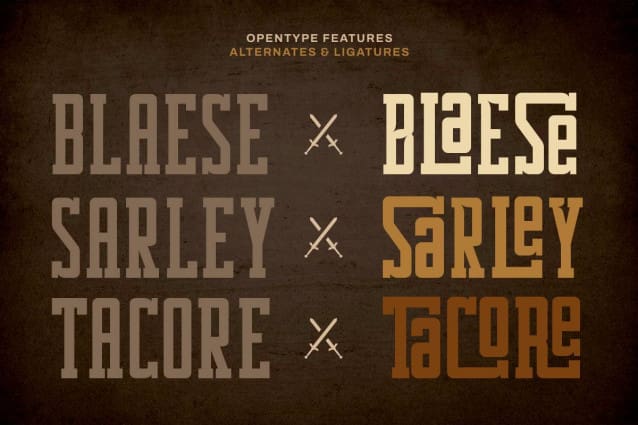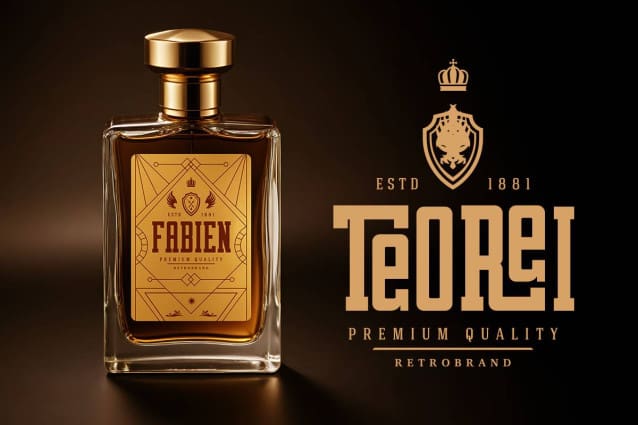
Patema Font
Patema Font – Slab Serif Condensed Font, a bold yet elegant typeface meticulously designed to combine the strength of slab serif with the sleekness of condensed letterforms. Patema Font is crafted to elevate your designs with a refined, timeless aesthetic, perfect for projects that demand both impact and sophistication.
At its core, Patema embodies the essence of classic typography with a modern twist. Its sturdy serifs and condensed proportions make it a versatile choice for various graphic applications, from striking headlines to clean and minimal branding, ensuring its adaptability across digital and print platforms.